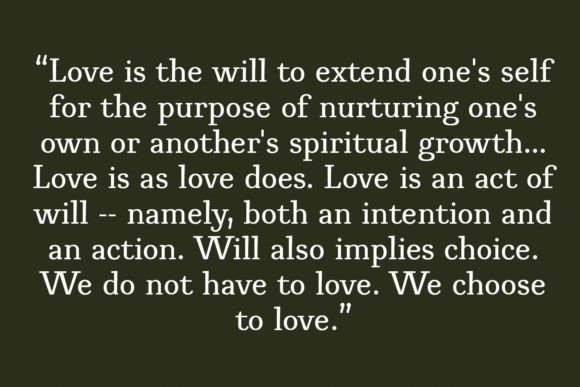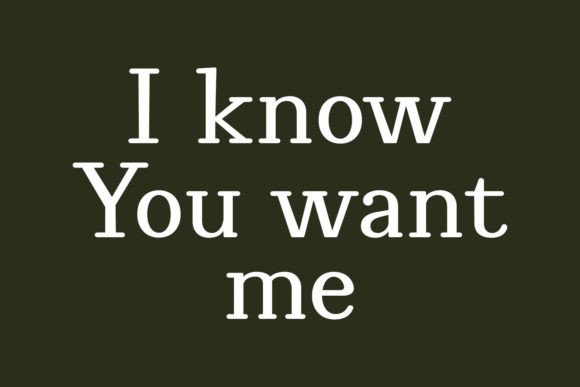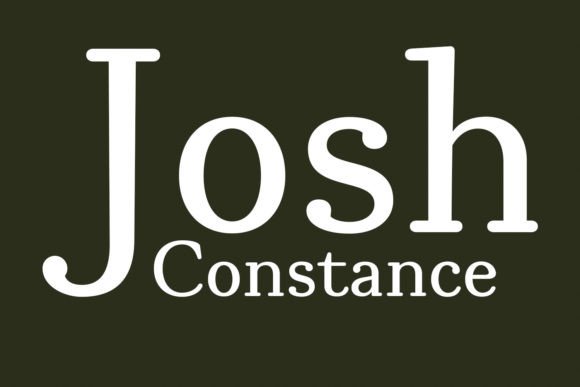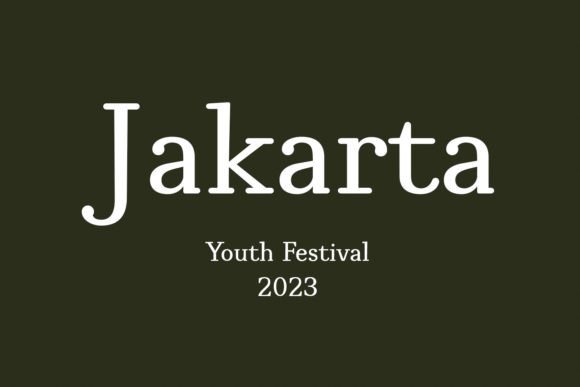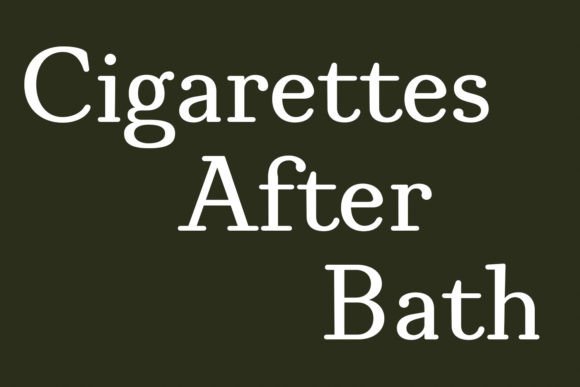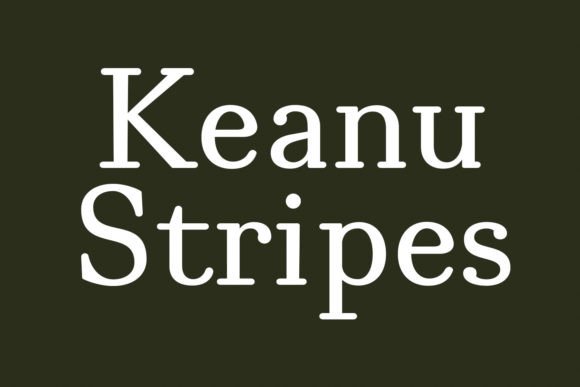
Introduction to Kosther Font Font
Fonts play a crucial role in design, and the Kosther Font font is a typeface that brings both character and versatility to any project. Whether you’re working on a branding project, a website, or a print design, the Kosther Font font offers a unique style that can elevate your work.
Kosther is a classic serif font.
Its exquisite and elegant style gives it an incredible amount of versatility, thus making it suitable for a wide range of projects .
Key Features of Kosther Font Font
Why Choose Kosther Font Font?
The Kosther Font font is more than just a typeface – it’s a design tool that helps you communicate your message with style and clarity. Its unique character set and versatile design make it suitable for a wide range of applications, from elegant invitations to bold headlines.
With its carefully crafted letterforms and balanced proportions, the Kosther Font font ensures readability and visual appeal across all mediums.
What makes Kosther Font font special?
The Kosther Font font stands out with its unique design, exceptional readability, and versatility across various design applications.